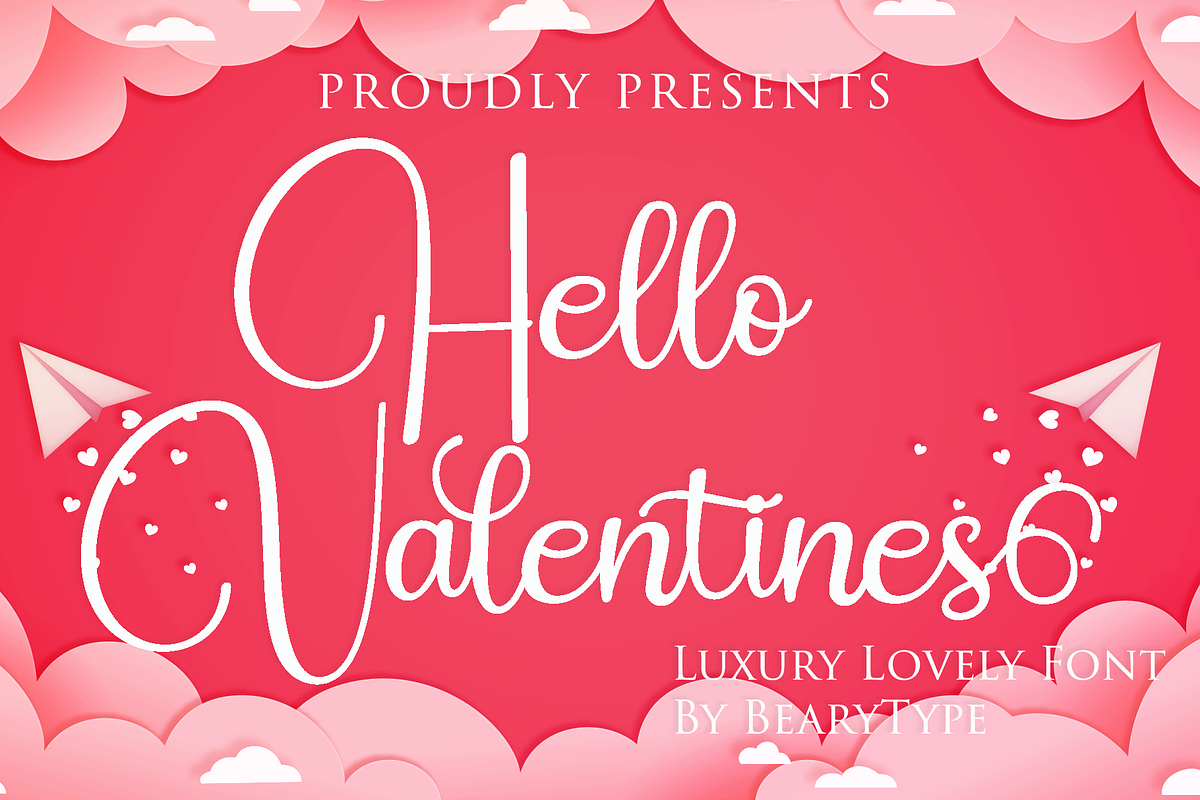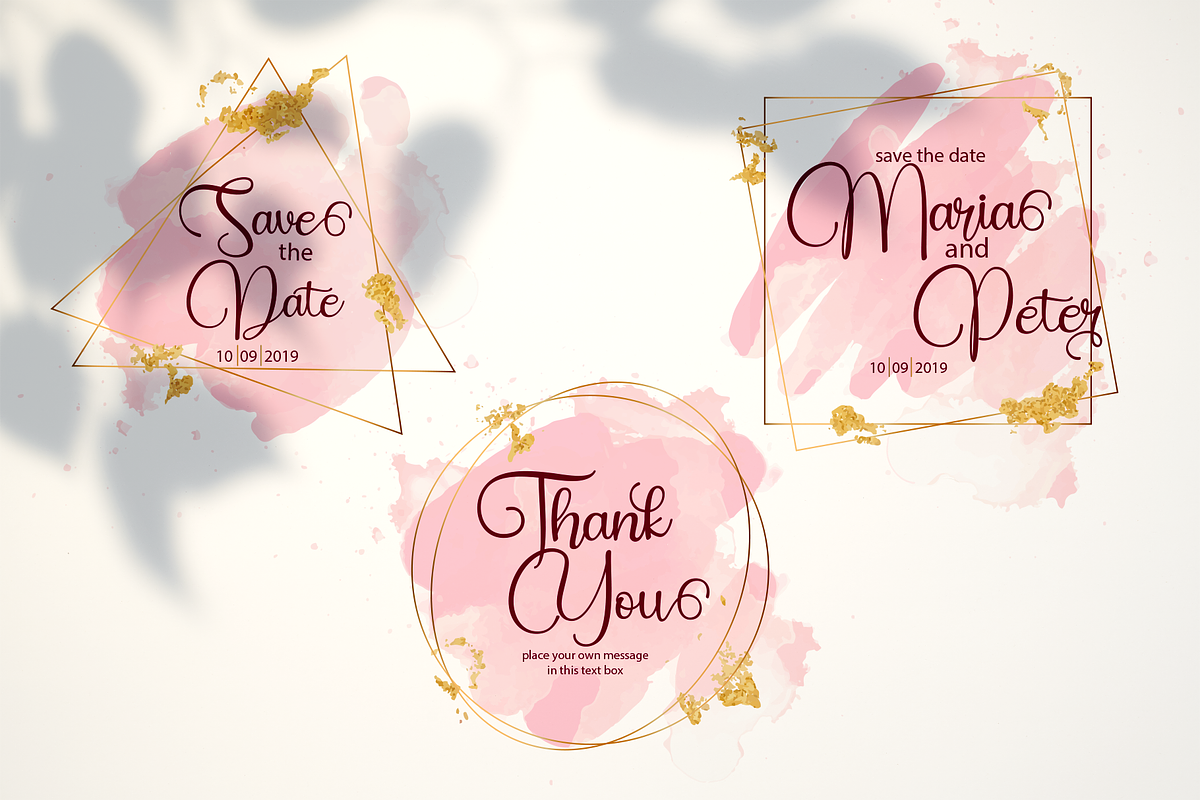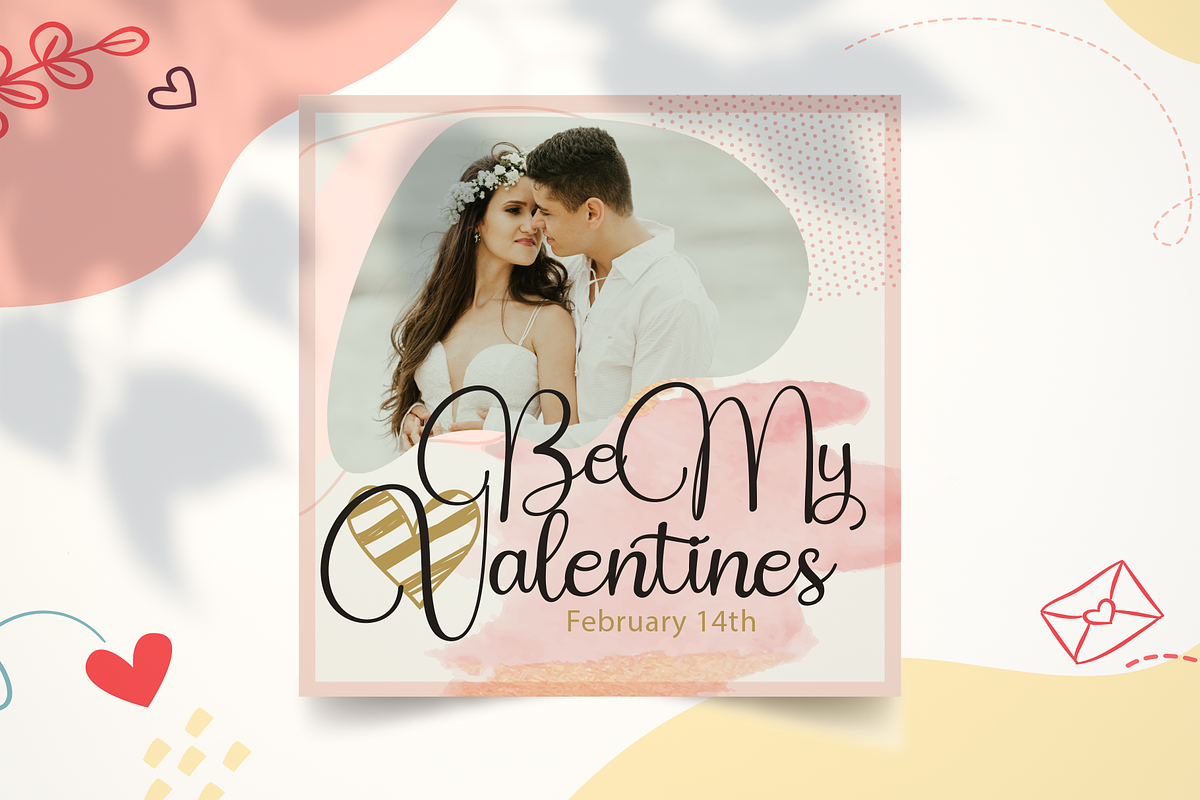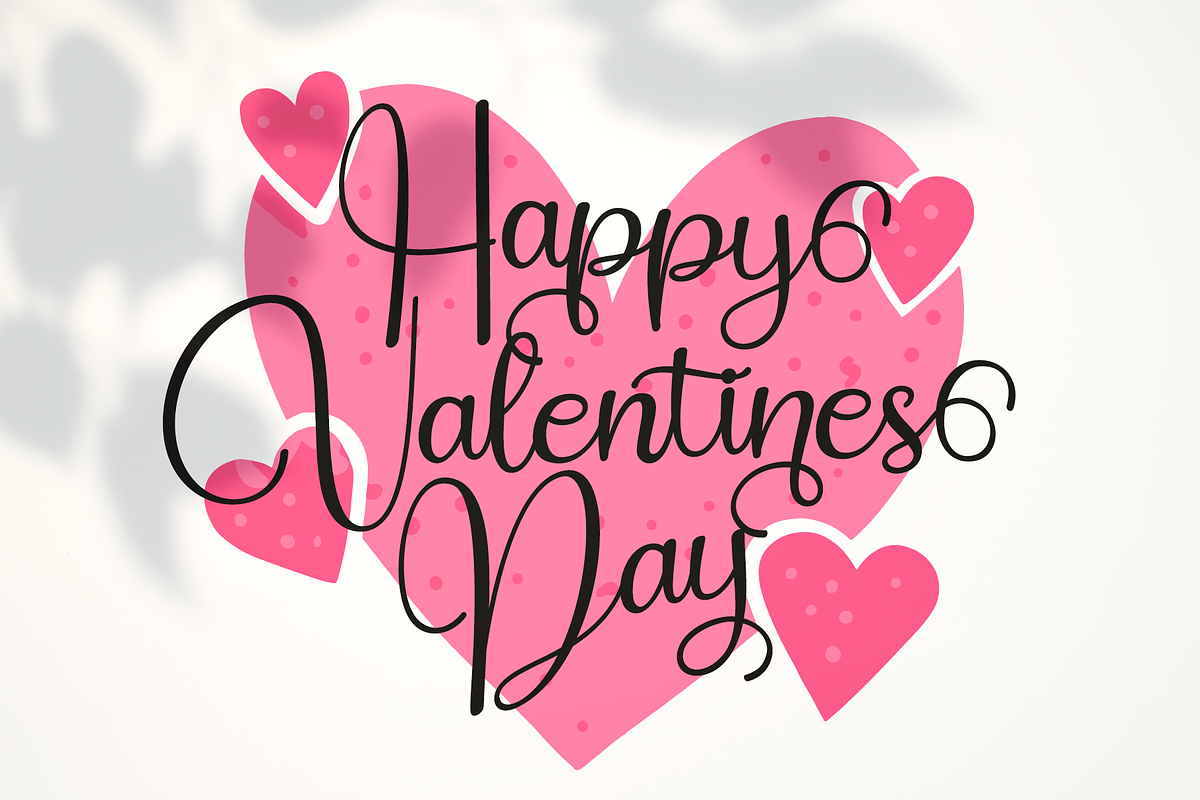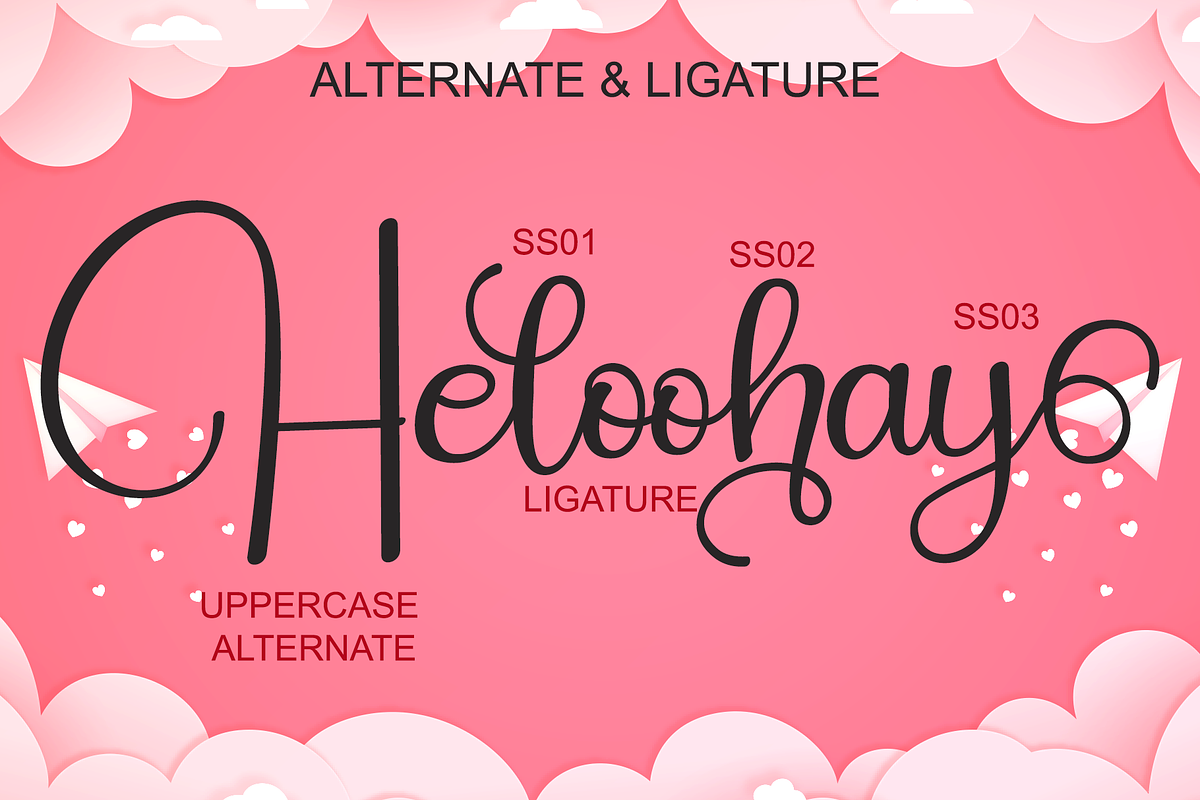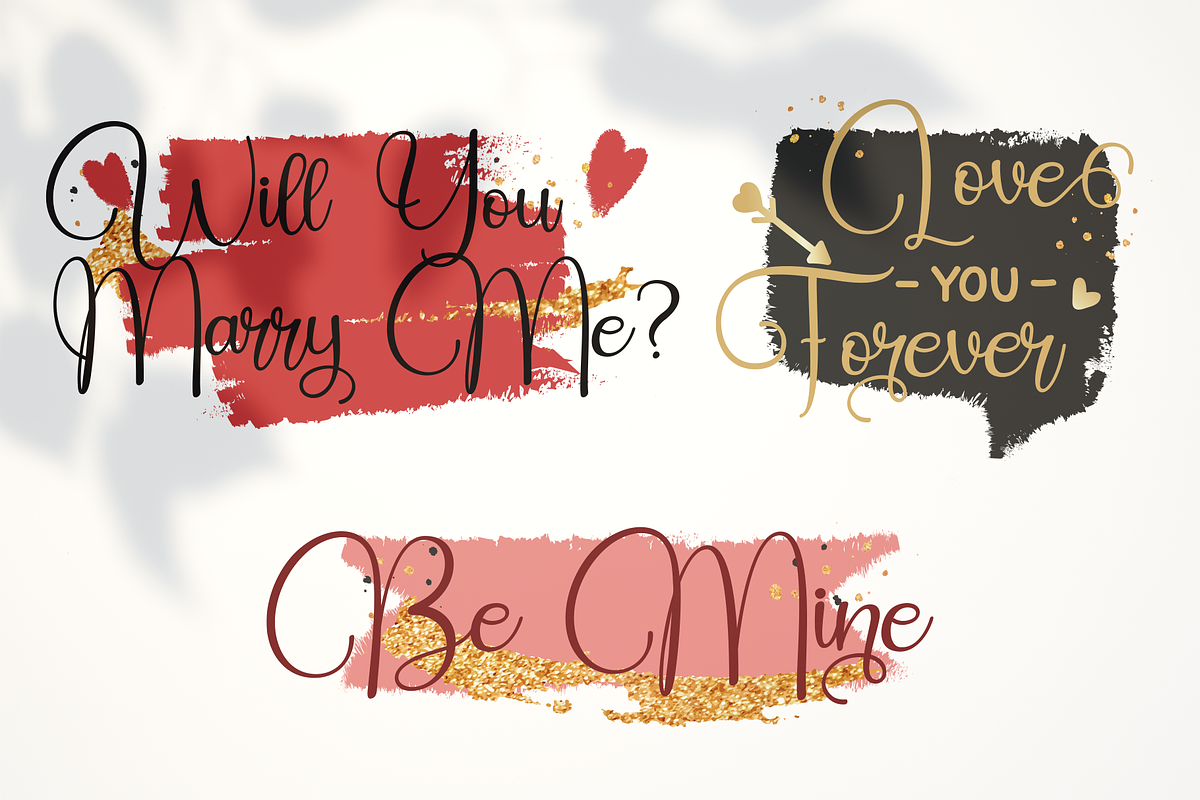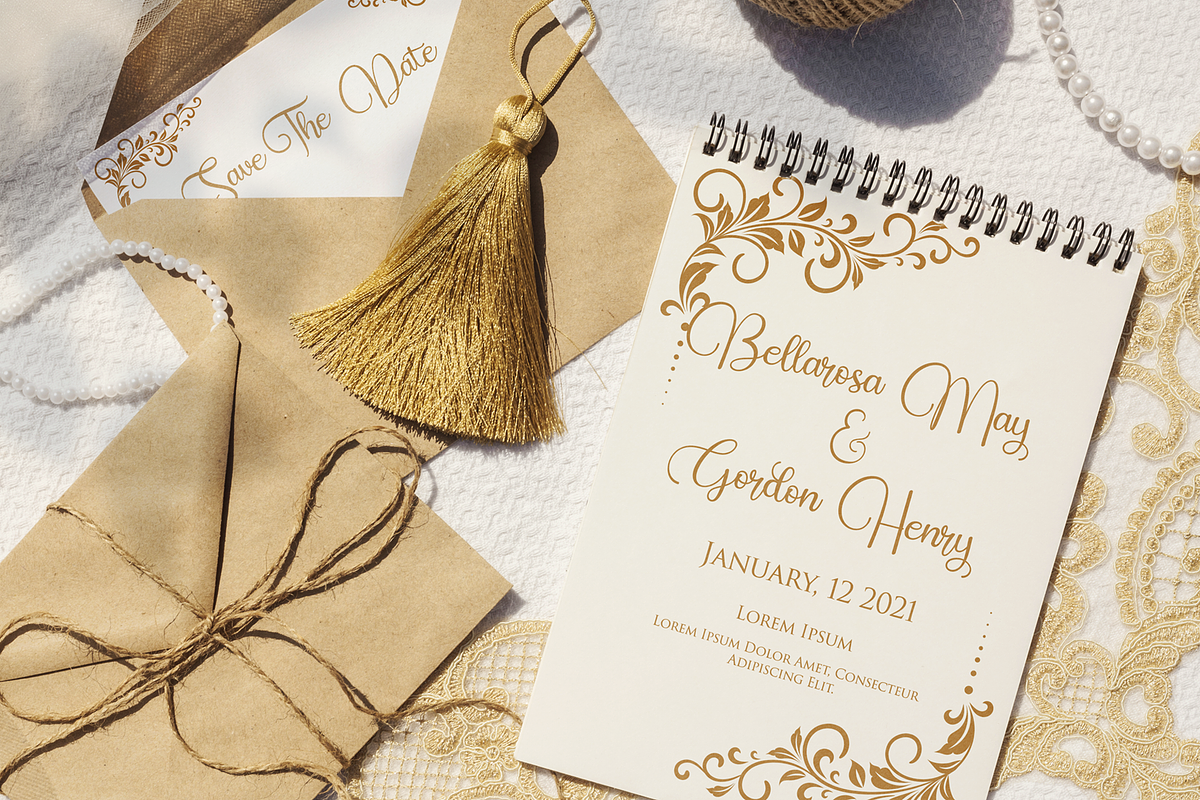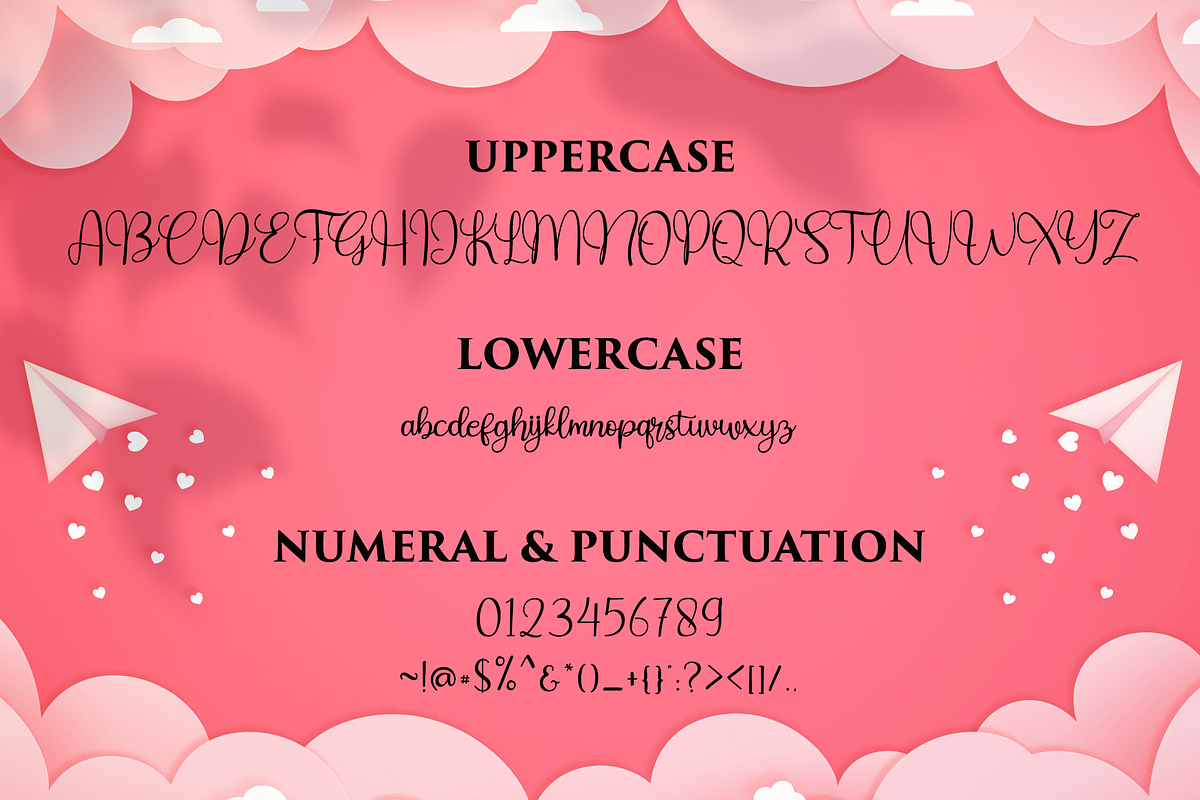
Hello Valentines
Proudly presents our font Hello Valentines. Hello Valentines is mazing hand lettering look attractive and natural! Every single letters have been carefully crafted to make your text looks beautiful.
This font includes 299glyphs, including 101 alternates character. It has over 60 extended Latin characters for language support. This font is suitable for invitation, branding, advertising, mugs, christmas cards, poster design etc, and also this font is PUA encoded so all characters are accessible via Character Map, Font Book, or the font management program of your choice.